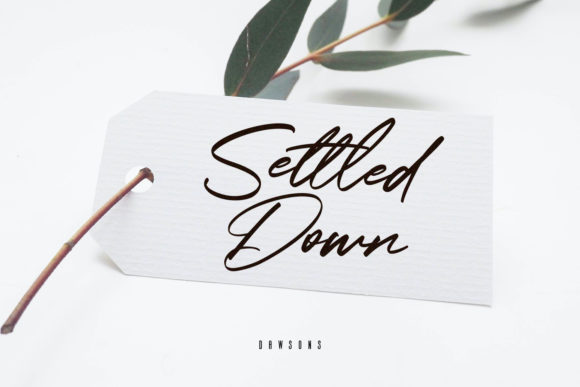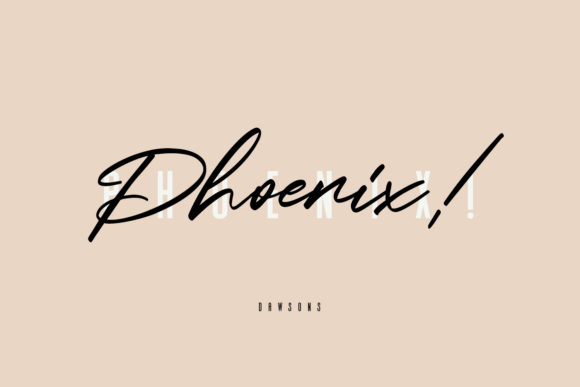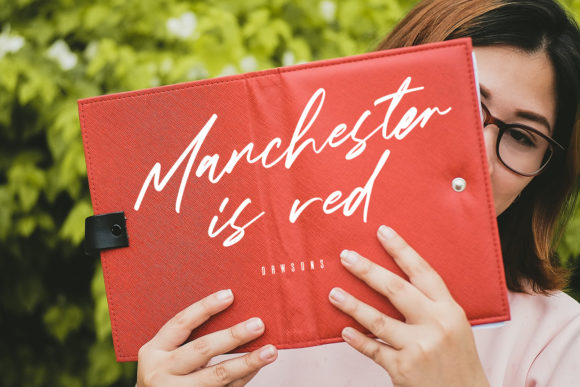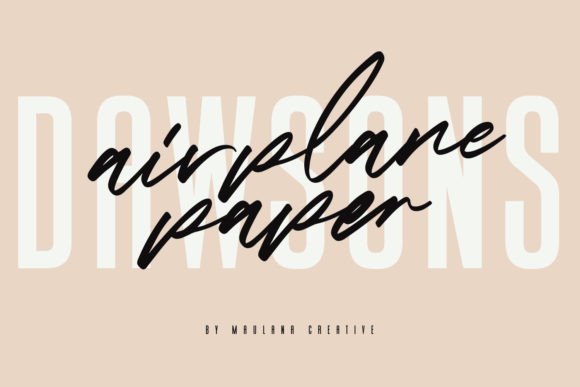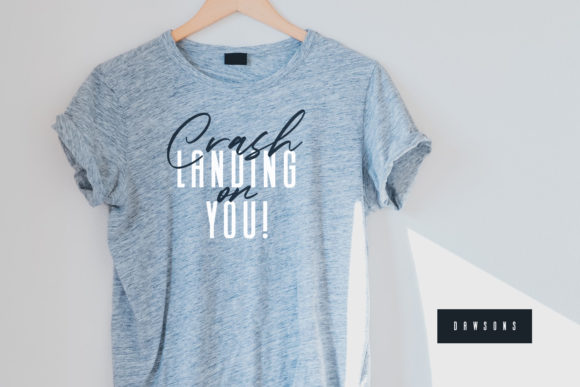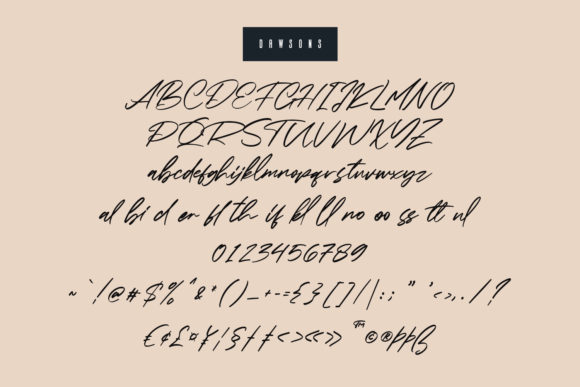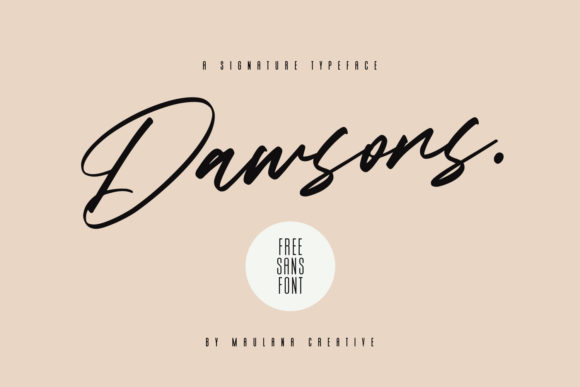
Dawsons Font: A Stunning Pairing of Brush Pen and Pencil
Are you tired of using the same old fonts in your DIY projects? Look no further than Dawsons Font, a beautiful and unique font that combines the elegance of a brush pen with the simplicity of a pencil. This gorgeous font is sure to bring any project to life, and in this article, we’ll take a closer look at what makes it so special.
The Unique Characteristics of Dawsons Font
Dawsons Font is the result of a stunning pairing of a brush pen and pencil, which gives it an incredibly endearing and authentic look. The font comes in two amazing styles: sans serif and script. The sans serif version is perfect for projects that require a clean and modern look, while the script version adds a touch of elegance and sophistication.
One of the standout features of Dawsons Font is its unique texture, which is reminiscent of hand-drawn letters. The brush pen and pencil combination gives the font a distinctive feel that is both rustic and refined. This texture adds a level of depth and character to any project, making it perfect for designers and crafters who want to add a personal touch to their work.
Why Designers and Crafters Love Dawsons Font
Dawsons Font is a versatile font that can be used in a wide range of projects, from DIY crafts to professional design work. Designers love the font’s unique texture and authentic look, which adds a level of sophistication to any project. Crafters, on the other hand, appreciate the font’s playfulness and creativity, which makes it perfect for handmade cards, scrapbooking, and other craft projects.
Another reason why designers and crafters love Dawsons Font is its ease of use. The font is easy to read and works well in a variety of sizes, making it perfect for both large and small projects. Additionally, the font is highly legible, which means that it can be used for body text as well as headings and titles.
How to Use Dawsons Font in Your DIY Projects
Using Dawsons Font in your DIY projects is easy and fun. Here are a few ideas to get you started:
- Handmade Cards: Add a personal touch to your handmade cards with Dawsons Font. Use the script version for a more elegant look or the sans serif version for a modern and clean design.
- Scrapbooking: Dawsons Font is perfect for scrapbooking projects. Use it to add captions to your photos or to create beautiful journal pages.
- DIY Signs: Create beautiful DIY signs with Dawsons Font. Use the font to add a personal touch to your signs and make them stand out.
- Paper Crafting: Dawsons Font is perfect for paper crafting projects, such as card making, paper cutting, and origami.
Tips and Tricks for Getting the Most Out of Dawsons Font
Here are a few tips and tricks for getting the most out of Dawsons Font:
- Experiment with Different Sizes: Dawsons Font works well in a variety of sizes, so don’t be afraid to experiment with different sizes to find the one that works best for your project.
- Pair it with Other Fonts: Dawsons Font pairs well with other fonts, so try combining it with a bold font for headings and a clean font for body text.
- Use it for Headings and Titles: Dawsons Font is perfect for headings and titles, so use it to add a touch of elegance and sophistication to your project.
Dawsons Font is a unique and beautiful font that is sure to bring any DIY project to life. With its stunning pairing of a brush pen and pencil, this font has an incredibly endearing and authentic look that is perfect for designers and crafters. Whether you’re working on a handmade card, scrapbooking project, or DIY sign, Dawsons Font is a great choice. So why not give it a try and see what amazing projects you can create?